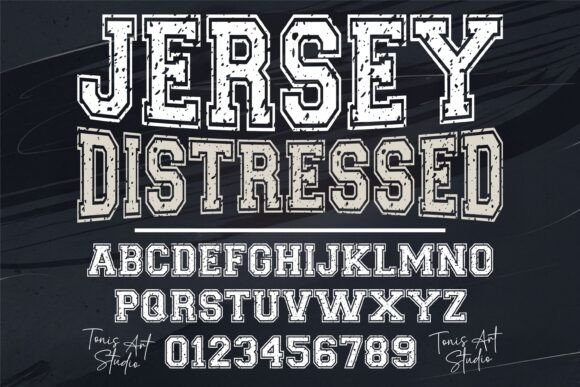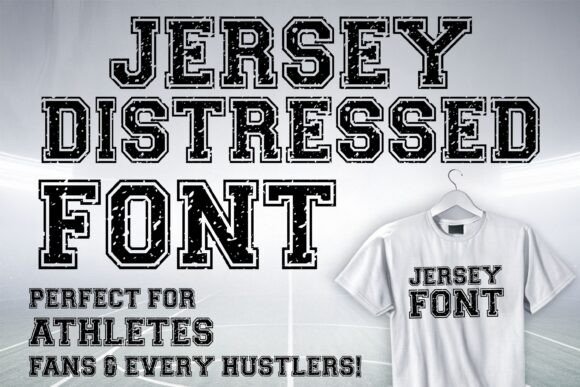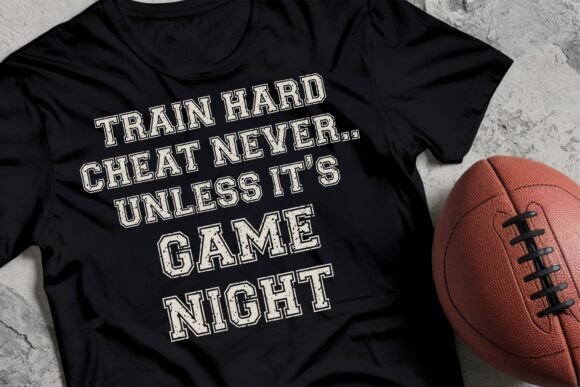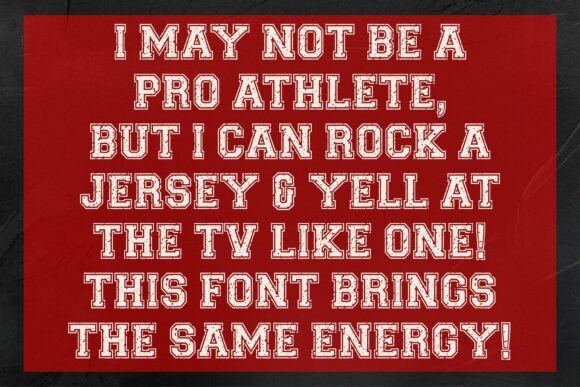
Jersey Distressed Font
About the Jersey Distressed Font
Experience the unique personality of Jersey Distressed Font, a font designed for impact. Jersey Distressed is a powerful varsity-style sports font with a grunge, rugged finish, ideal for football jerseys, team logos, workout gear, and bold sports-themed designs. This versatile distressed font works great for Cricut, Silhouette, and t-shirt printing. Featuring a bold display style, it fits perfectly with championship branding, custom lettering, and athletic apparel. Includes uppercase, numbers, and symbols in OTF and TTF formats. A must-have for sports designers!
Its strong, assertive personality makes Jersey Distressed ideal for headlines, posters, and branding projects requiring a bold, impactful statement. It excels in short, impactful text applications, conveying power and a vintage athletic feel. However, its distressed texture and weight make it unsuitable for body copy or UI elements where readability is paramount; long blocks of text would be difficult to decipher.
Pairing Jersey Distressed with a clean sans-serif like Open Sans for body text or a more refined serif such as Playfair Display for supporting elements creates a balanced aesthetic. For a more modern feel, consider pairing it with a geometric sans-serif font like Montserrat. These pairings allow Jersey Distressed to maintain its visual impact while improving overall readability.
The font’s overall aesthetic is bold, rugged, and rebellious, lending itself to brands focused on strength, authenticity, and a vintage sports feel. It’s perfect for projects evoking nostalgia or targeting an audience that appreciates a worn, high-impact aesthetic.